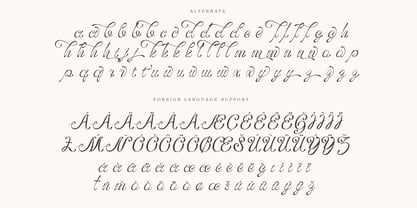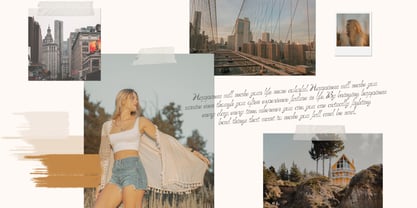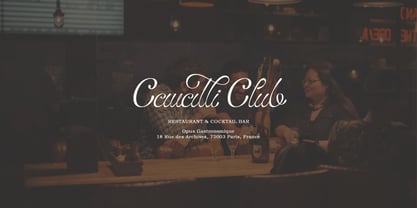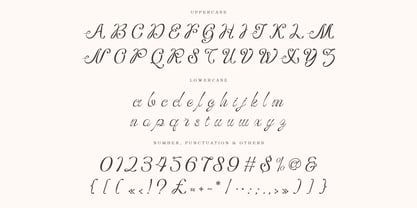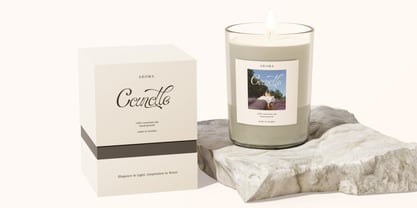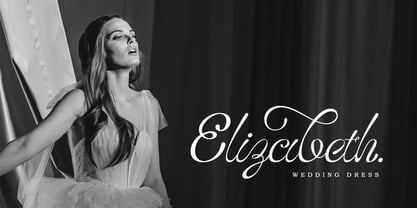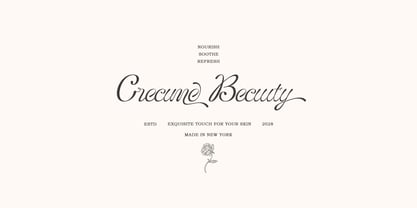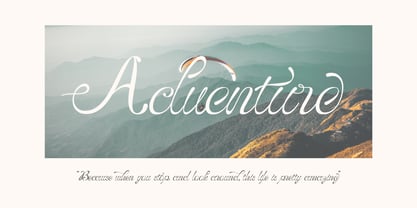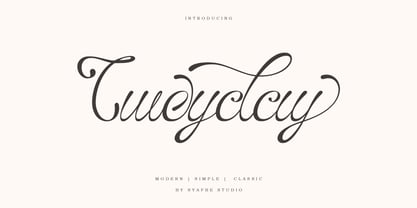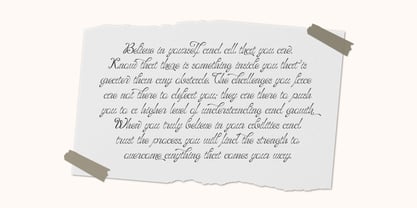
Tweyday
The Tweyday Font Family was designed by Syafwan Mus and published by Syafbe. Tweyday contains 1 styles. More about this family
Tweyday Font: Classic Elegance Meets Modern Practicality Embrace the seamless blend of classic elegance and contemporary flair with the Tweyday font. This typeface features gracefully curved lines and smooth edges, delivering a clean and sophisticated appearance infused with modern touches. It embodies a philosophy that connects the past with the future, balancing classic design with minimalist modern aesthetics. Each carefully crafted curve conveys a sense of harmony and tranquility, offering a serene visual experience that invites reflection and appreciation of every detail. Versatile Applications Perfect for logo design and branding Ideal for formal invitations and digital applications Effortlessly adapts to both traditional and modern themes Suitable for print and digital platforms Tweyday's adaptability makes it a top choice for businesses aiming to convey an elegant yet contemporary image. Its approachable prestige complements both small businesses and large companies, enhancing every design project with a touch of luxury.